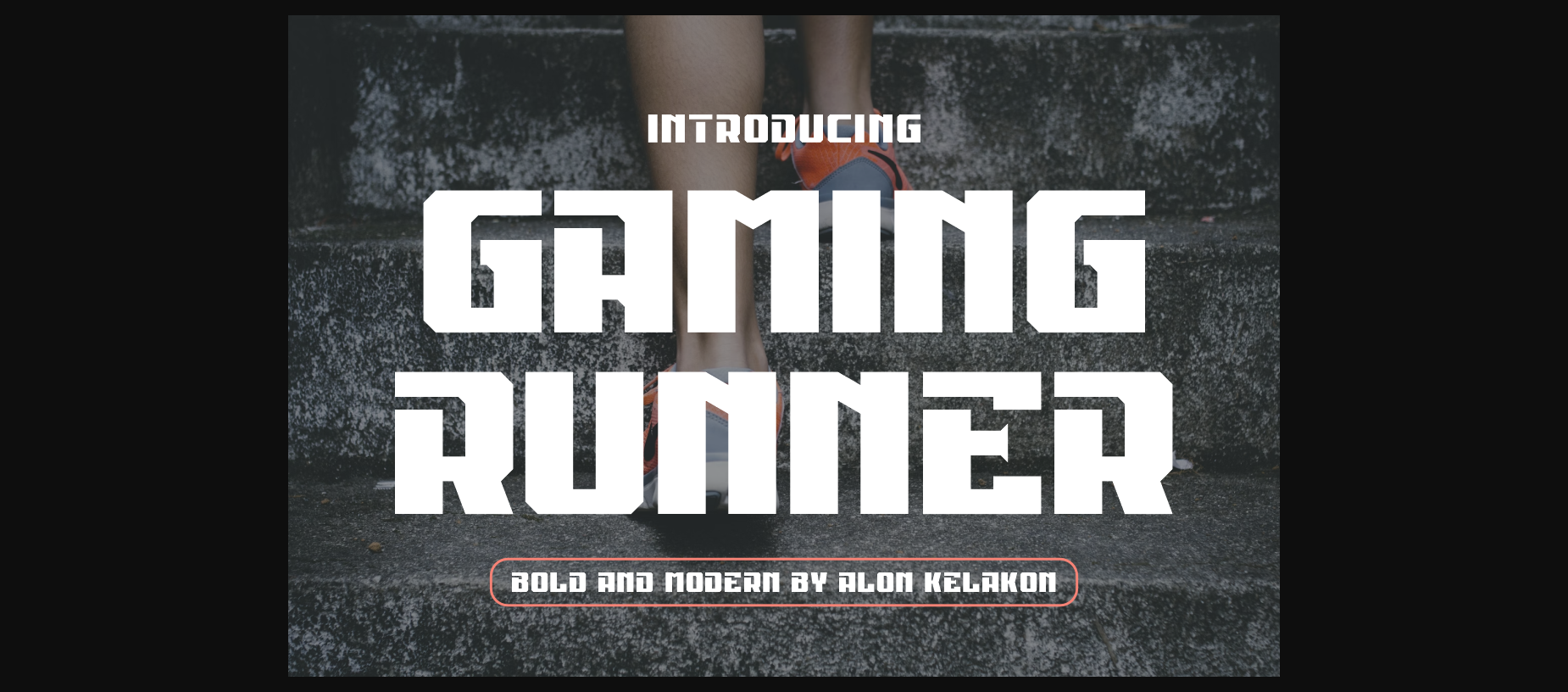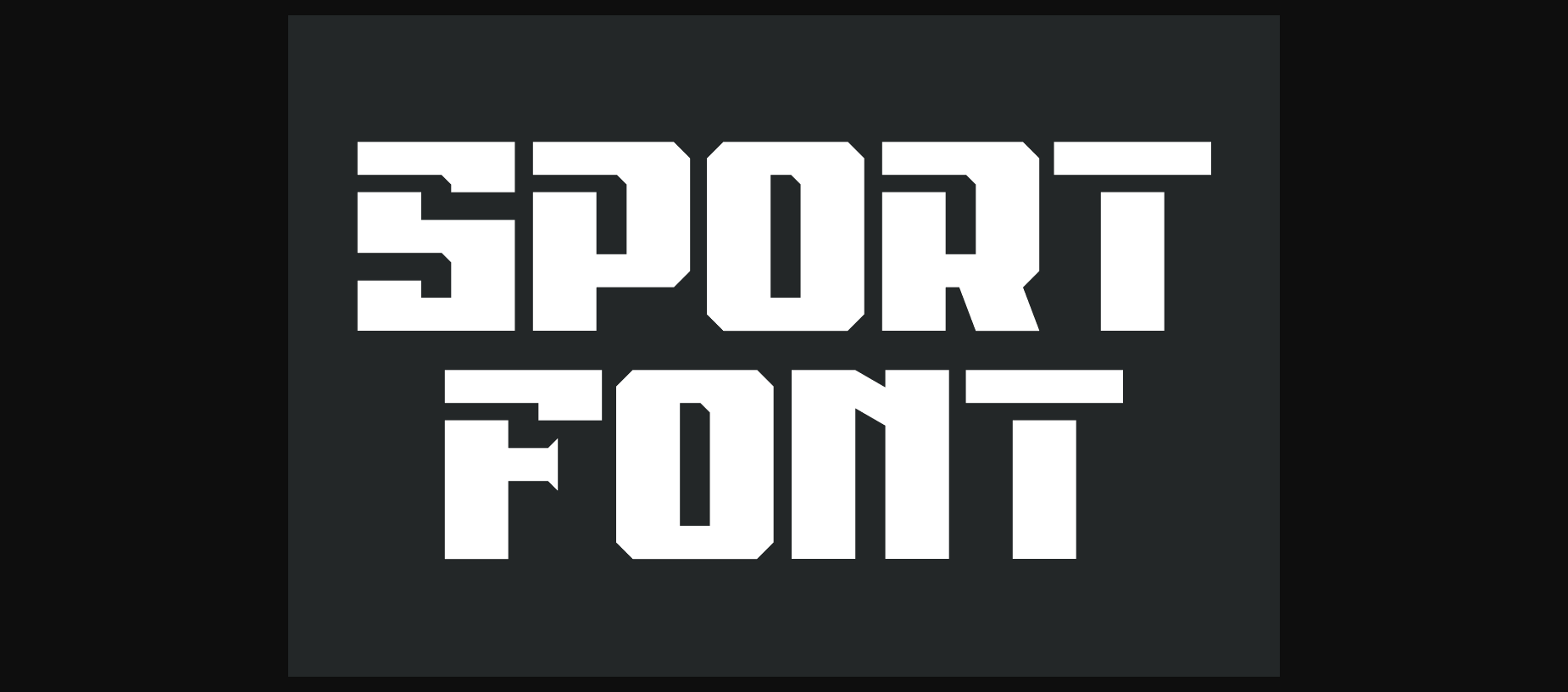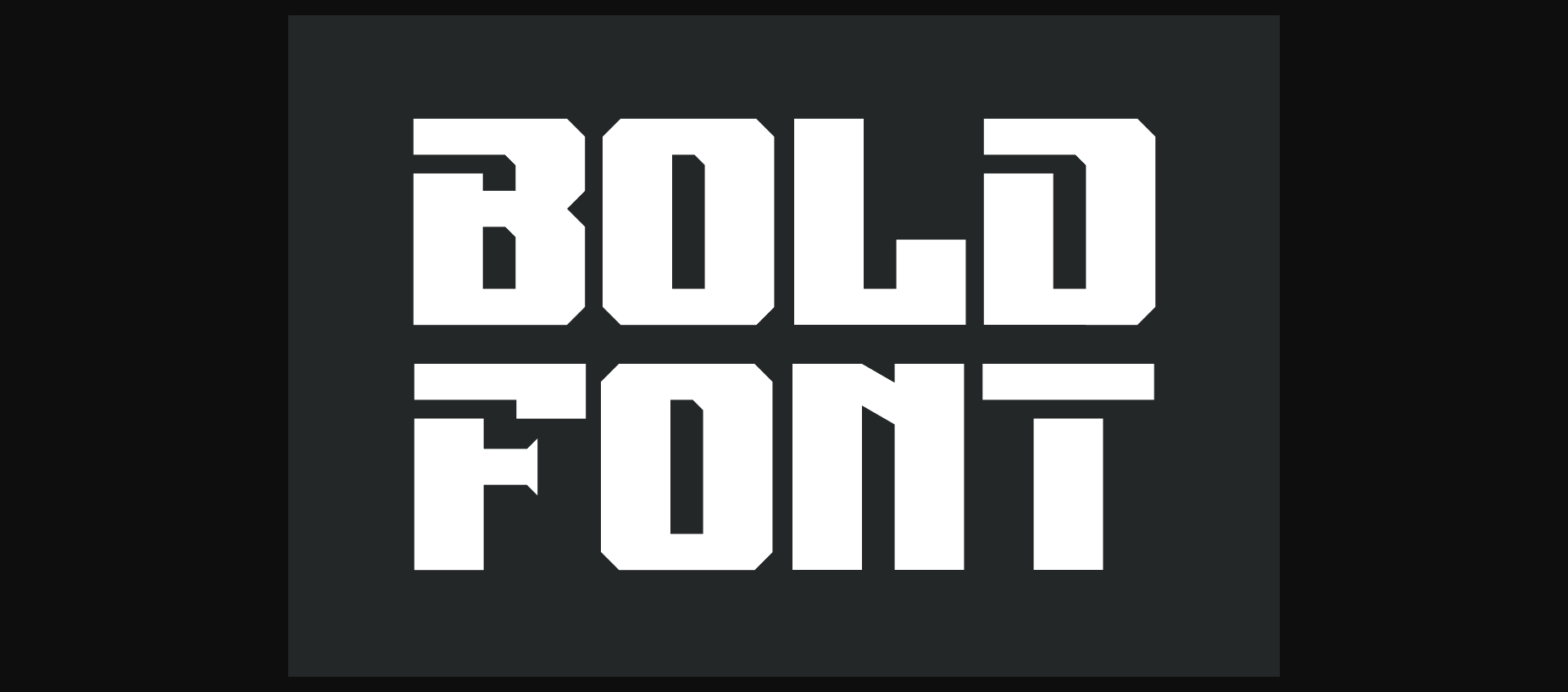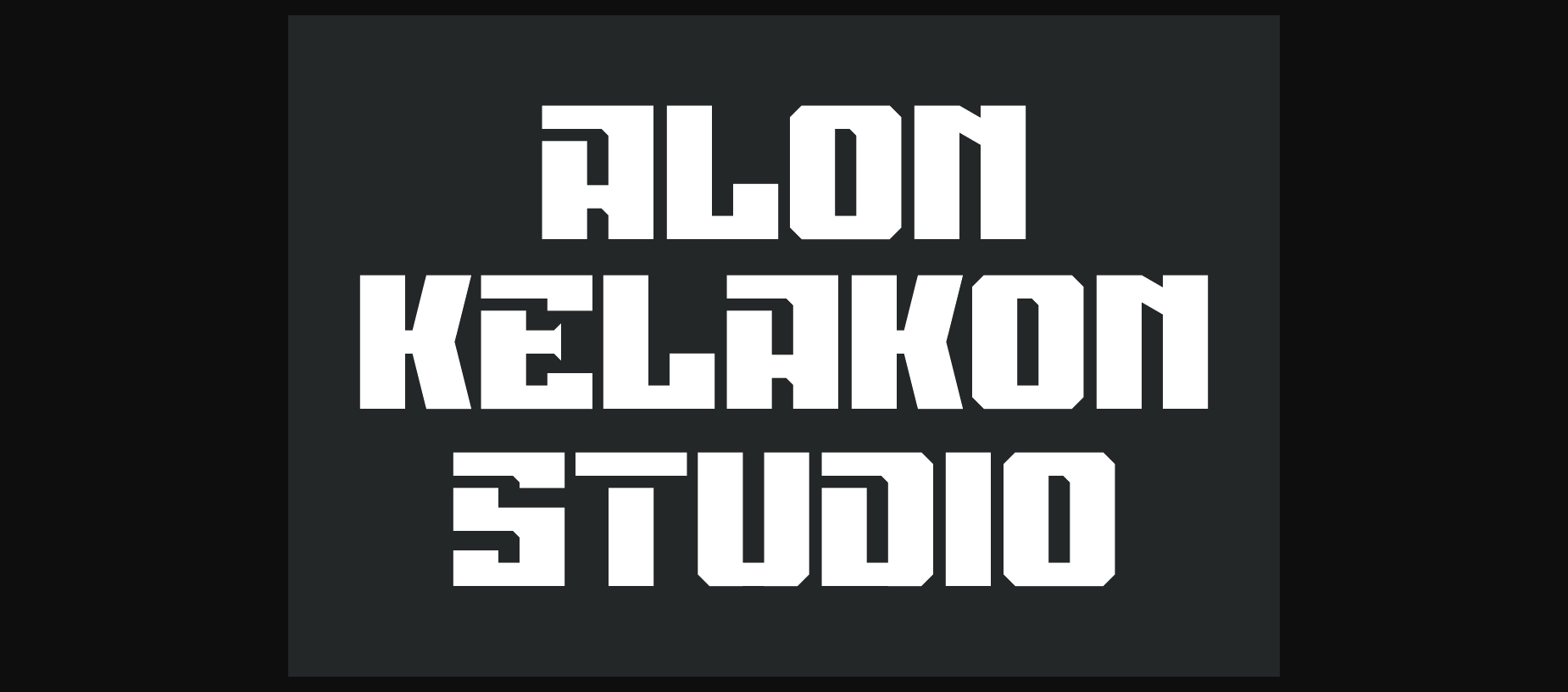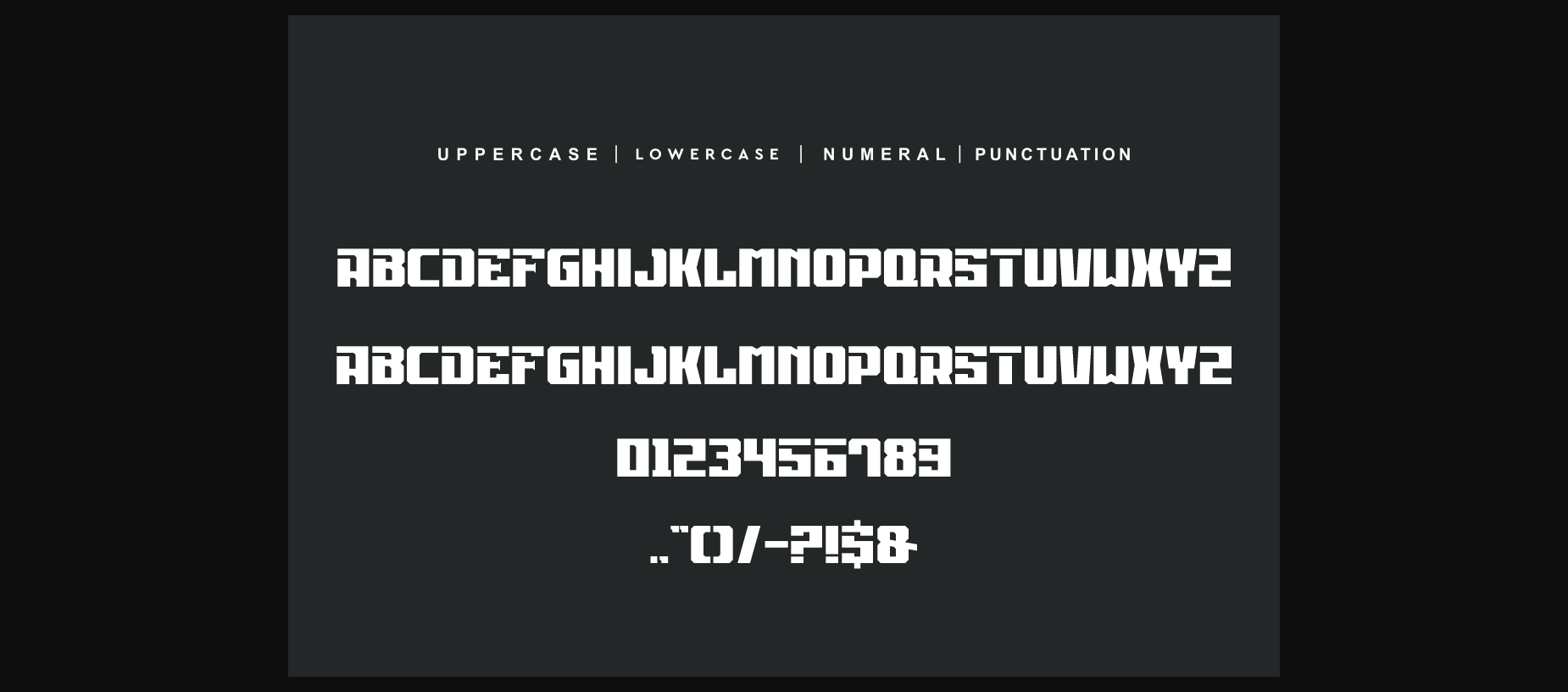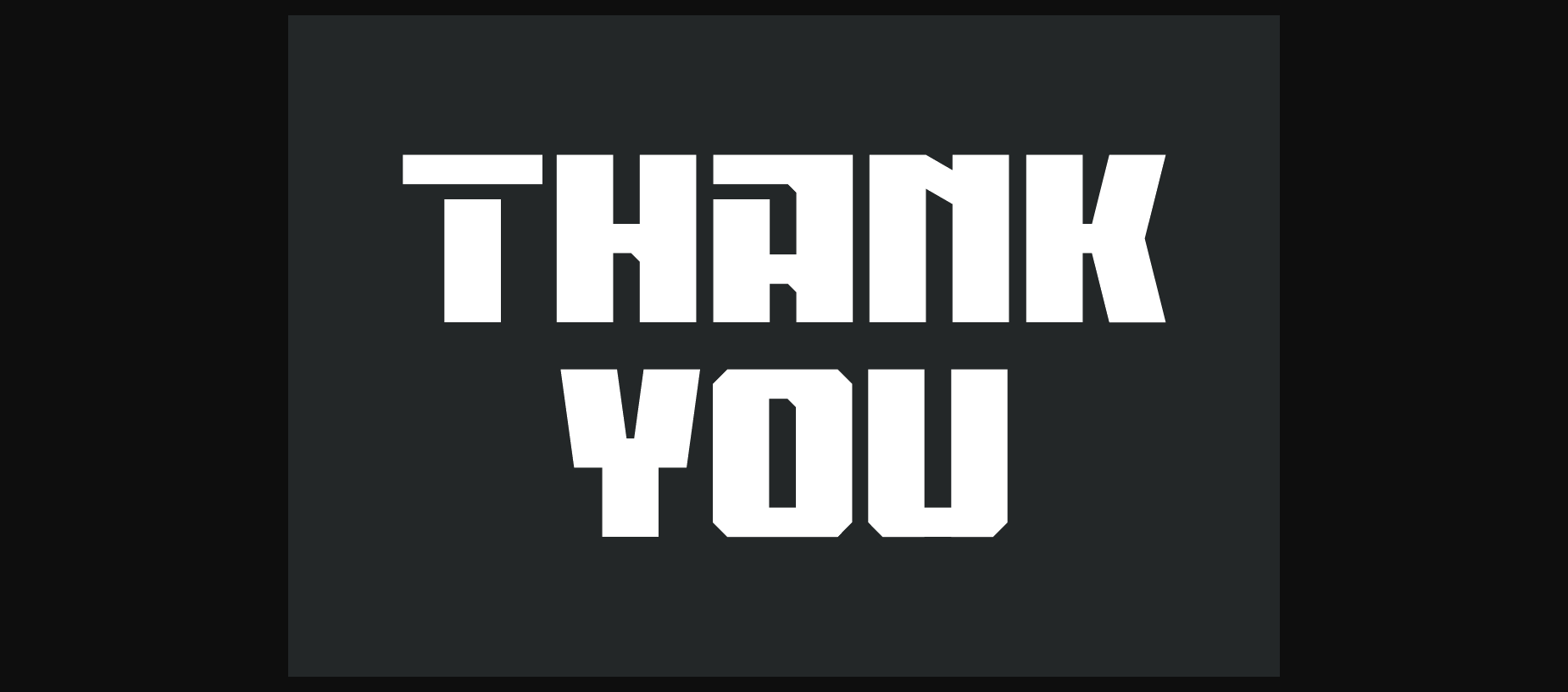
About Gaming Runner Font
Gaming Runner Font is one bold and modern sans serif font. Ready to use for your design like labeling, clothing, movie scenes, poster, movie title, gigs, album covers, logos, and much more.